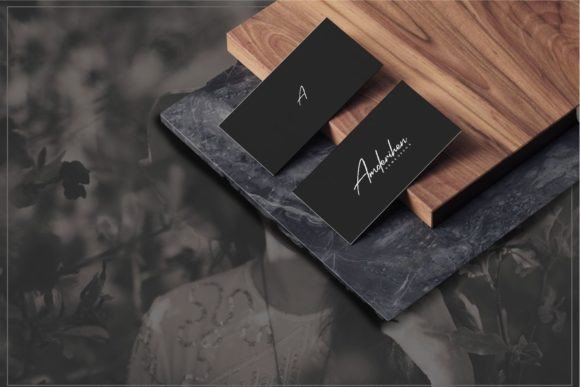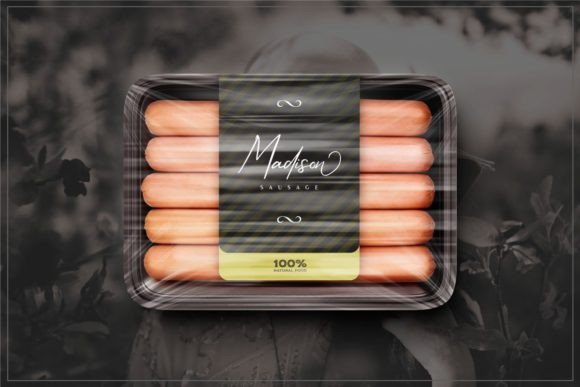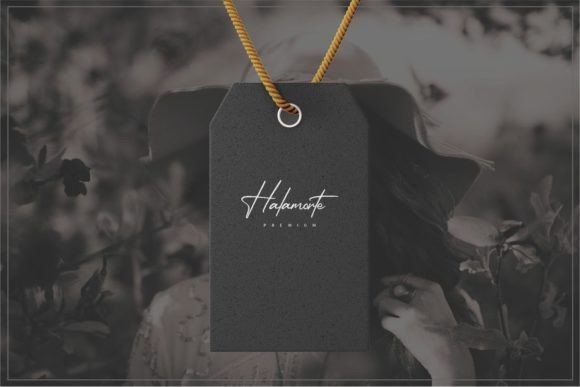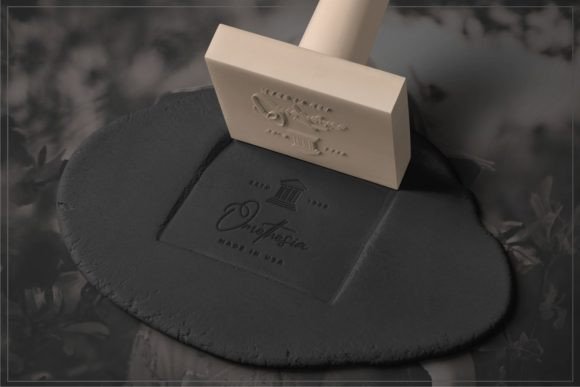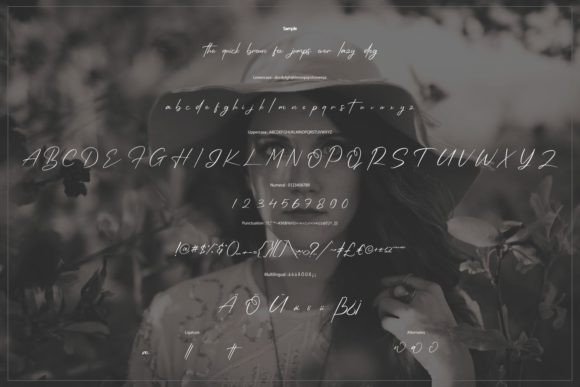
The Perfect Font to Make Your Designs Dance
Have you ever been working on a design project, pouring your heart and soul into it, and suddenly, you stumble upon the perfect font? For me, that moment was when I discovered the enchanting Bastaredia Signature Font. It’s as if the characters came to life, dancing along the baseline in a romantic and sweet waltz, leaving me breathless.
As a designer, you know the importance of a well-chosen font in making your project stand out. That’s where the Bastaredia Signature Font comes in – a calligraphy typeface that adds a luxury spark to any design. Its PUA encoding makes it easy to access all the amazing glyphs and ligatures, giving you the freedom to create truly unique designs.
Bastaredia Signature Font Key Features
- Font Family: Bastaredia Signature Font is a unique, handwritten font family with multiple styles.
- Character Count: The font family includes a wide range of characters, including uppercase and lowercase letters, numbers, and punctuation marks.
- Unique Characteristics: Bastaredia Signature Font features a distinctive, handwritten style with subtle imperfections and nuances, giving it a personal and creative touch.
Bastaredia Signature Font Review
Overall, I’m quite impressed with the Bastaredia Signature Font. The font has a unique, elegant feel to it, perfect for adding a touch of sophistication to your designs ✨. The font is highly customizable, with a wide range of weights and styles available. This makes it ideal for creating intricate designs, such as logos, business cards, and letterheads.
- The font’s high x-height and moderate stroke width make it easy to read, even at smaller sizes ✨.
- The extensive character set and language support make it a great choice for multilingual projects ✨.
- The font’s clean, modern design makes it a great choice for contemporary branding and design projects ✨.
Overall, I think the Bastaredia Signature Font is a great choice for designers who want to create high-end, sophisticated designs. While it may not be suitable for every project or budget, it’s definitely worth considering for the right client or design challenge.
Bastaredia Signature Font is commonly used for branding, marketing materials, and design projects that require a unique and elegant font style. It is ideal for logos, business cards, and promotional materials.